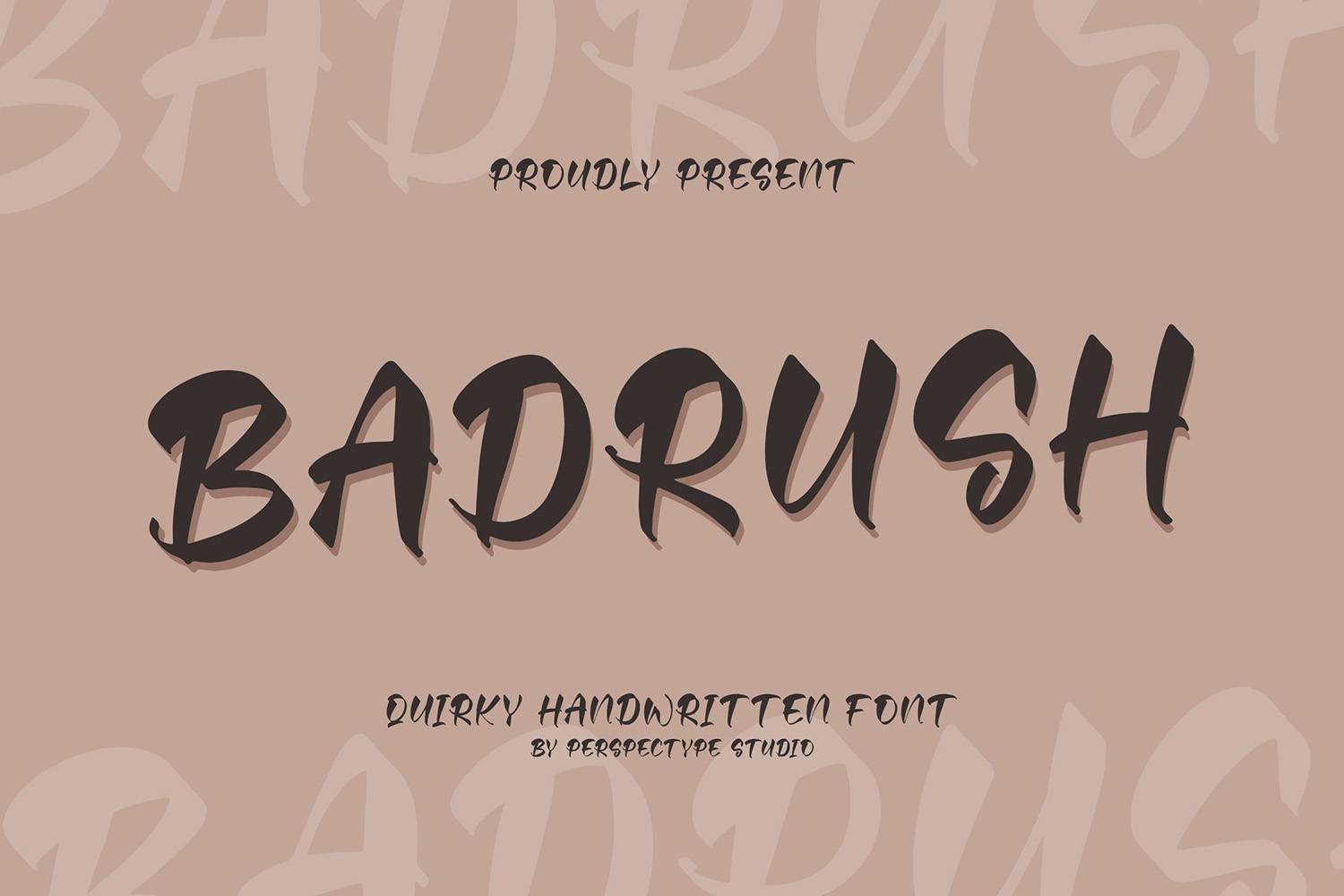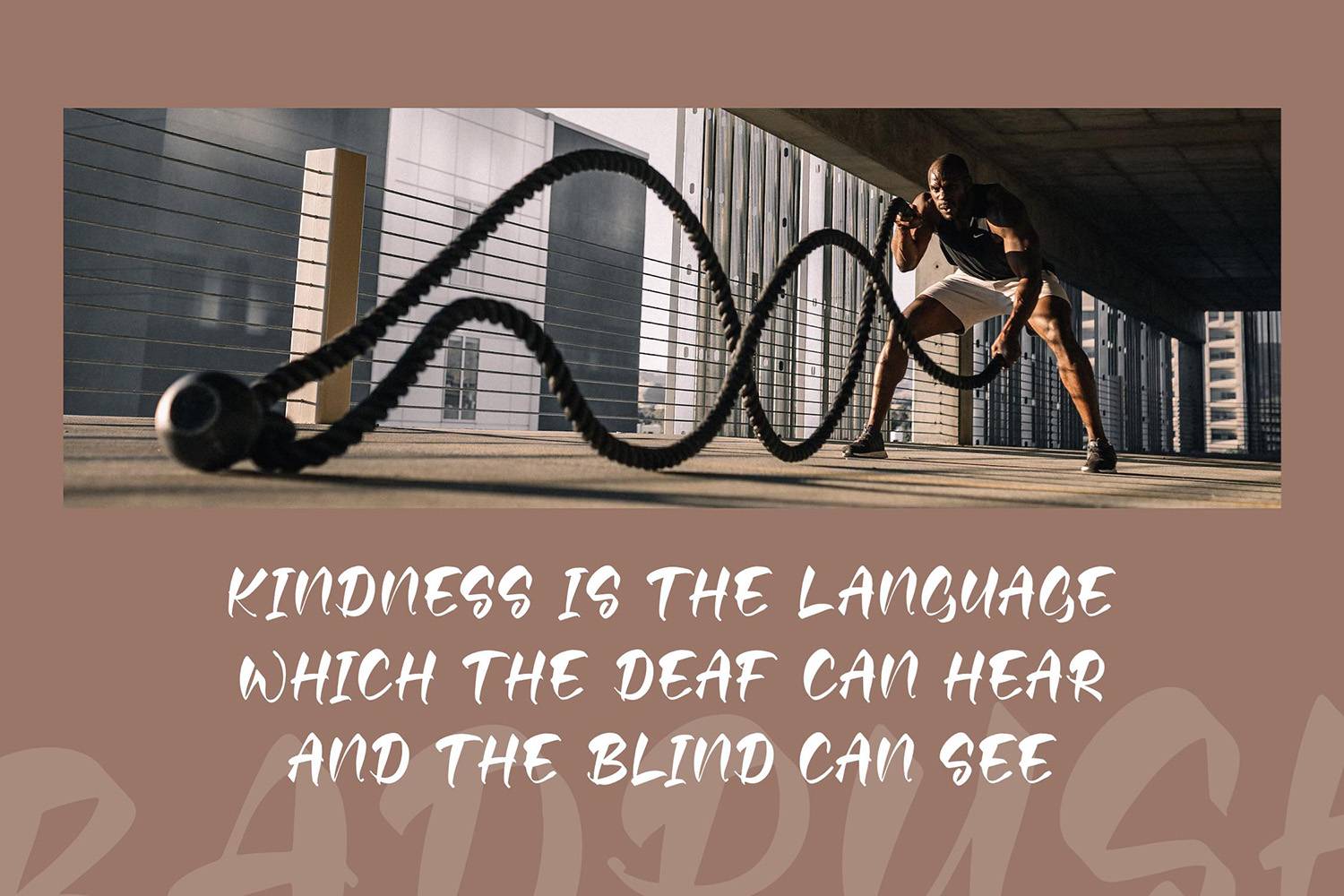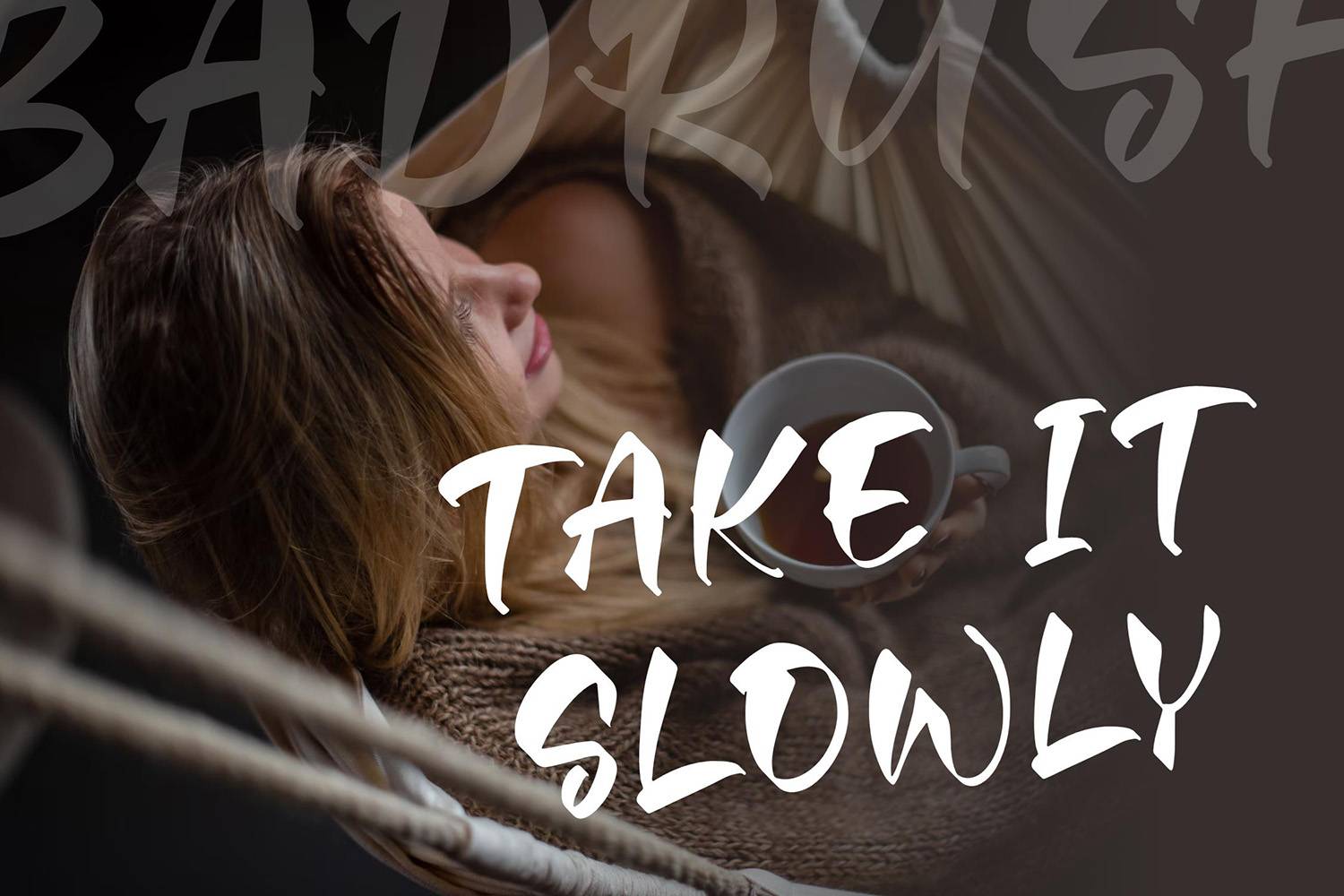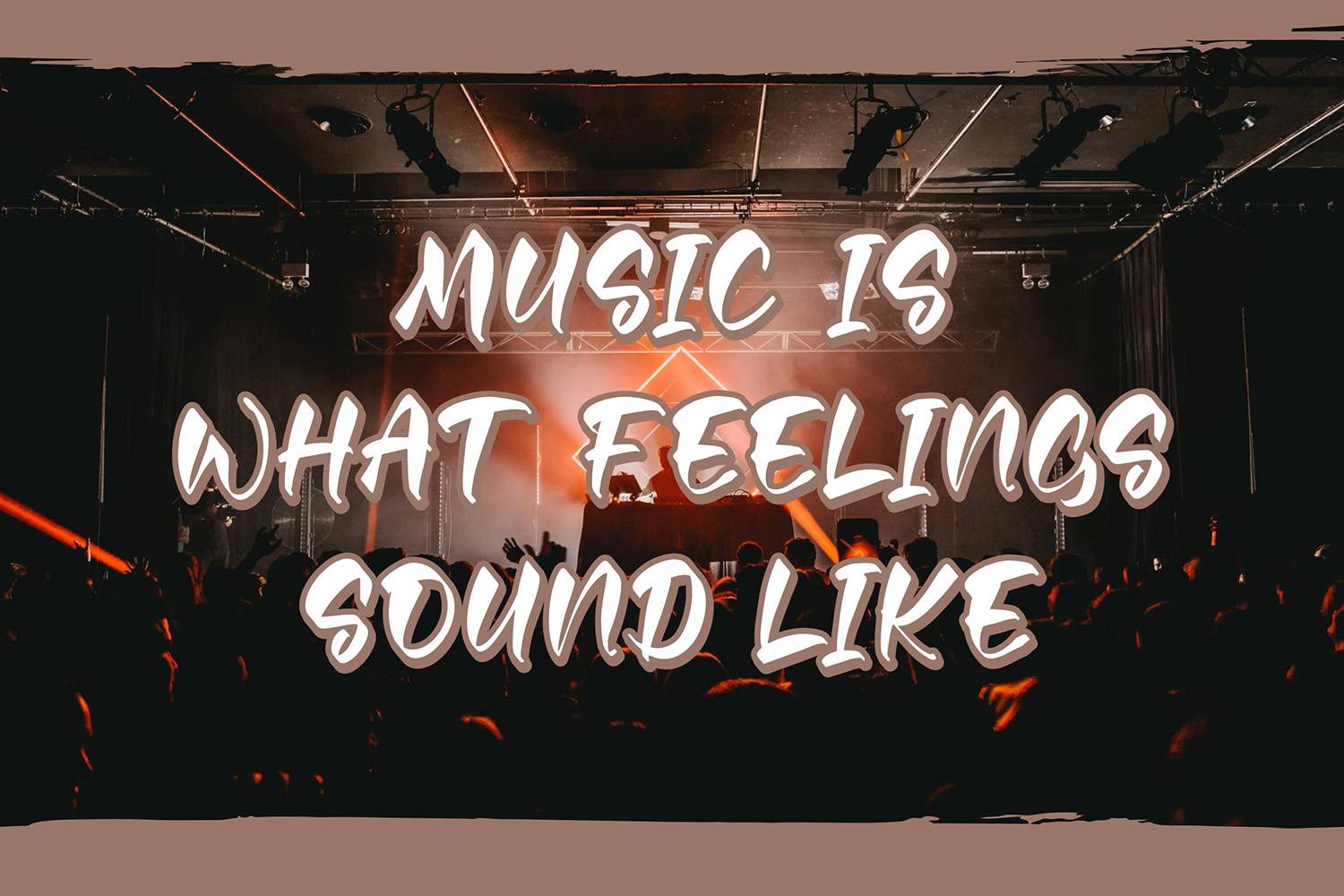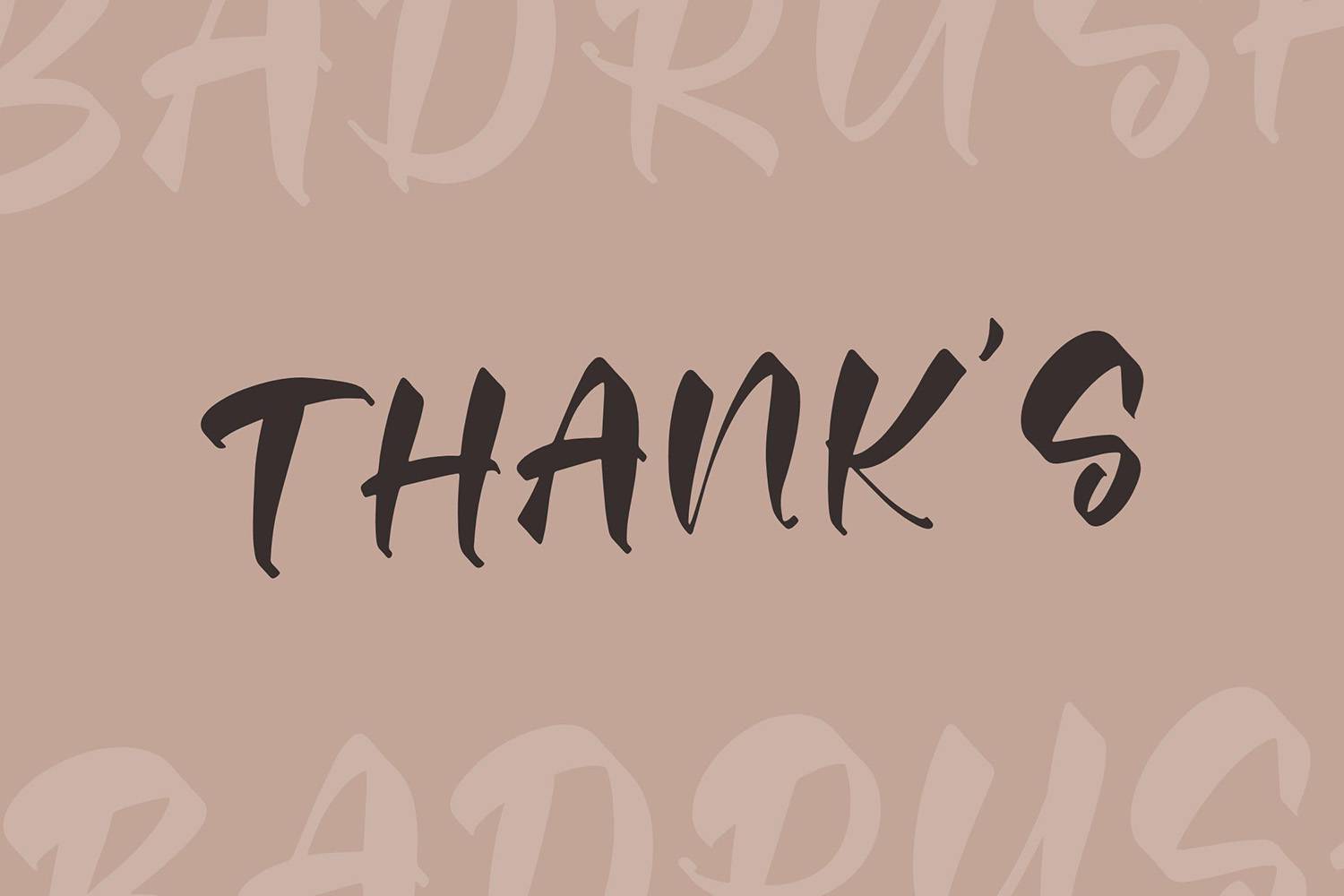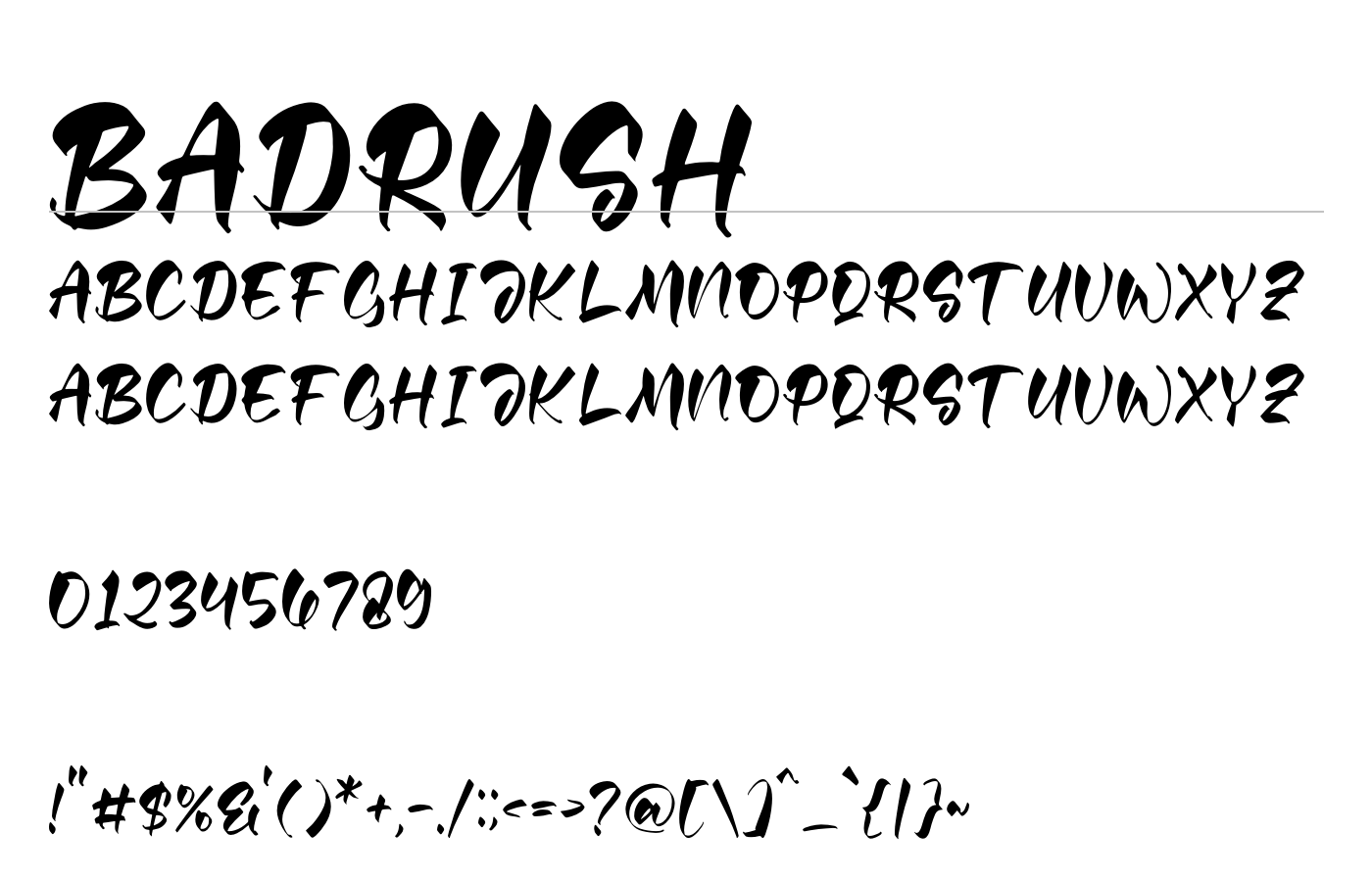
Badrush is a bold, expressive script font with a hand-painted brush style that feels energetic and dynamic. Its tall, slightly condensed letterforms and strong stroke contrast give it a lively, modern personality perfect for eye-catching headlines, logos, and creative branding that seek a casual yet striking look. This font works well where a sense of movement and artistic flair is desired, such as in posters, fashion branding, and urban-style designs.
Badrush Font
About Badrush Font